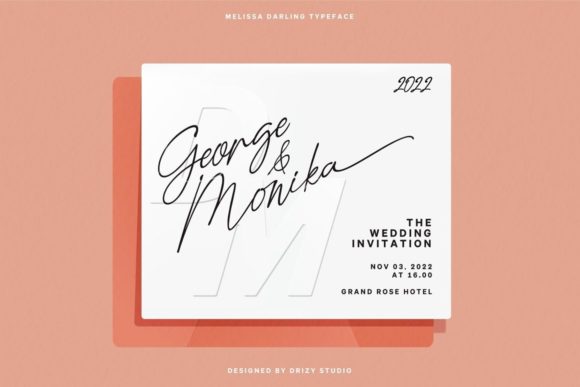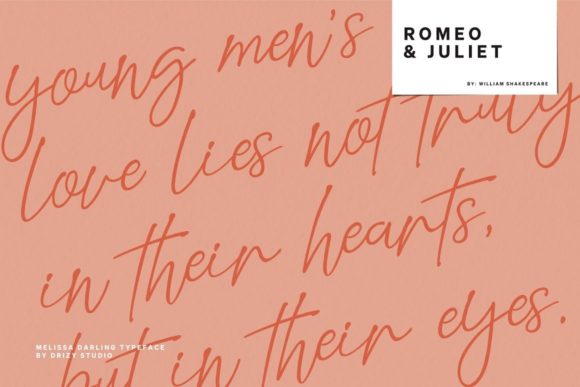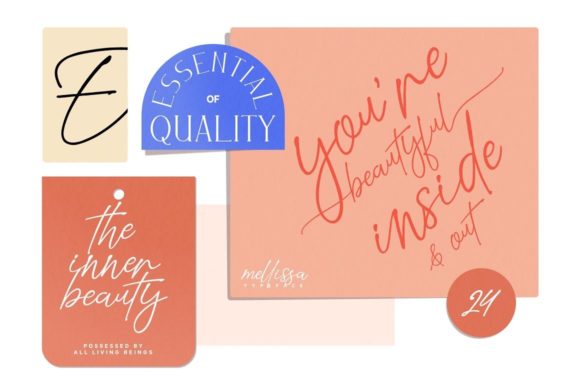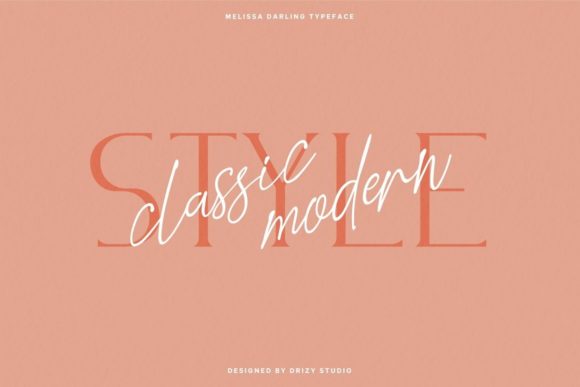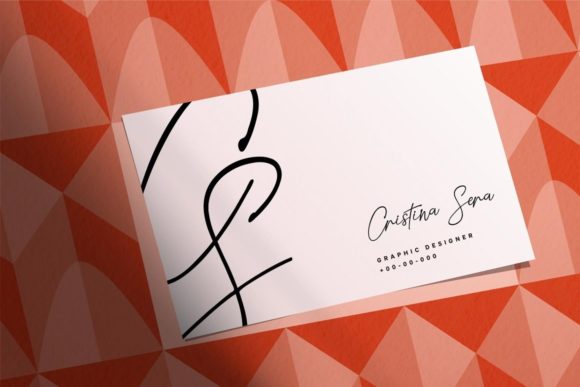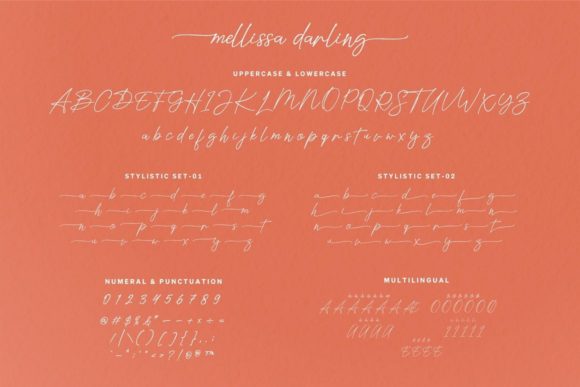
Introduction to Mellissa Darling Font
Mellissa Darling is a lovely and delicate script font that exudes elegance and class.
This font was particularly crafted for those who need a beautiful and refreshing look to their designs Mellissa Darling is PUA encoded which means you can access all of the amazing glyphs and ligatures with ease.
Key Features of Mellissa Darling Font
Why Choose Mellissa Darling Font?
Mellissa Darling Font offers exceptional quality and versatility, making it a valuable addition to your design toolkit. Whether you’re creating for personal projects or commercial use, Mellissa Darling Font delivers professional results.